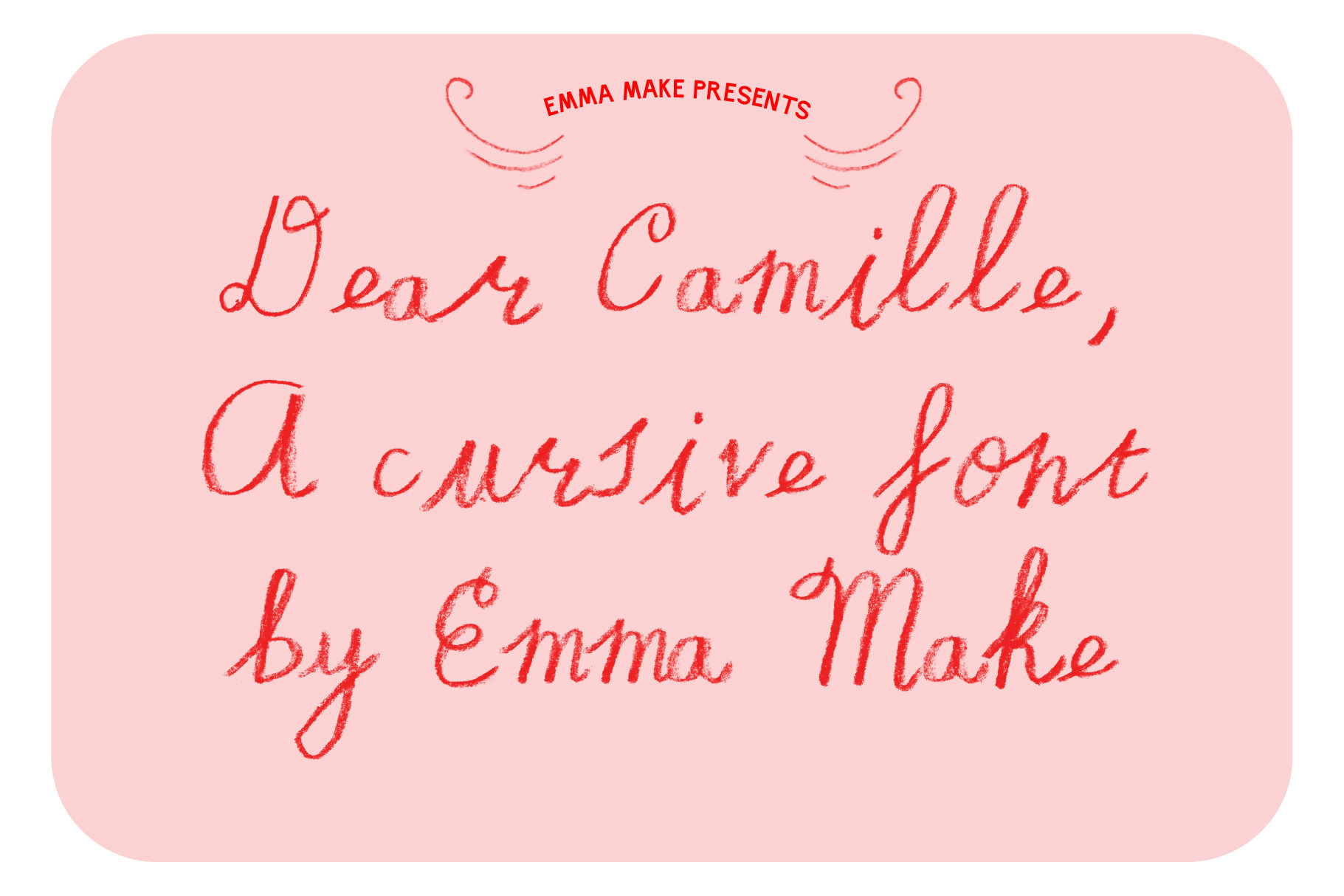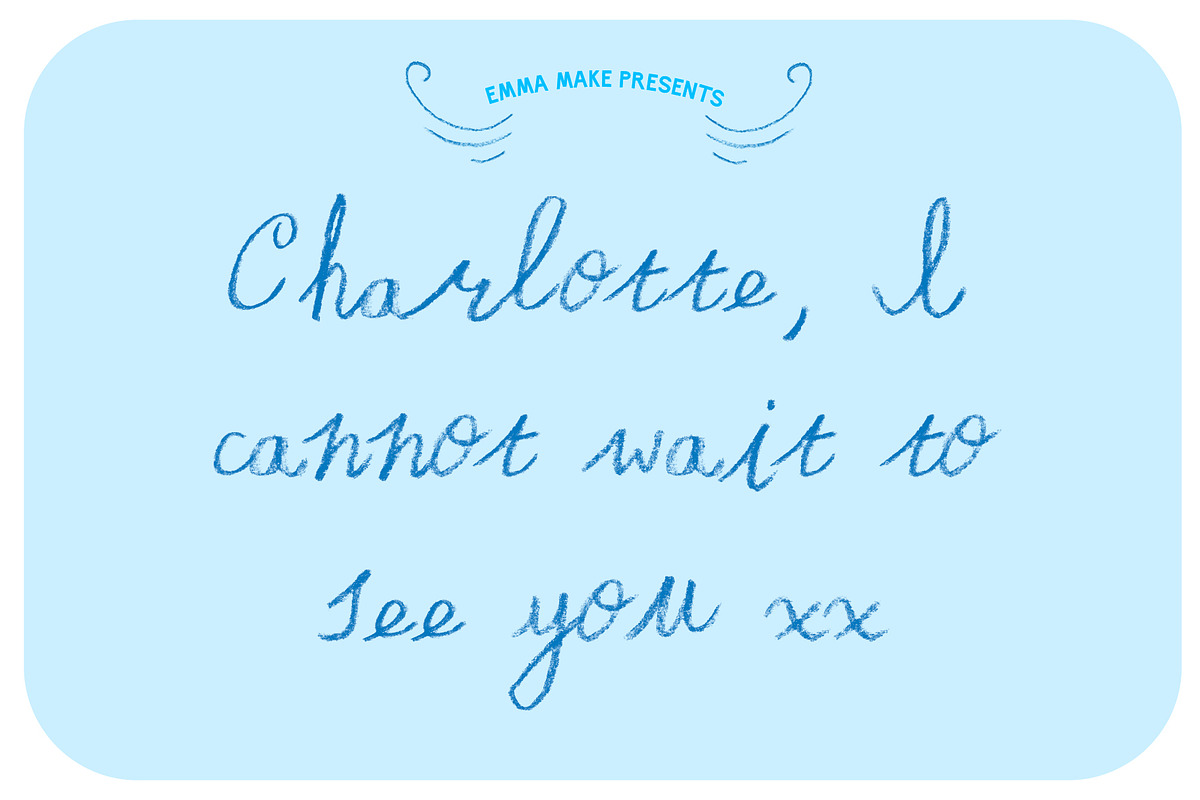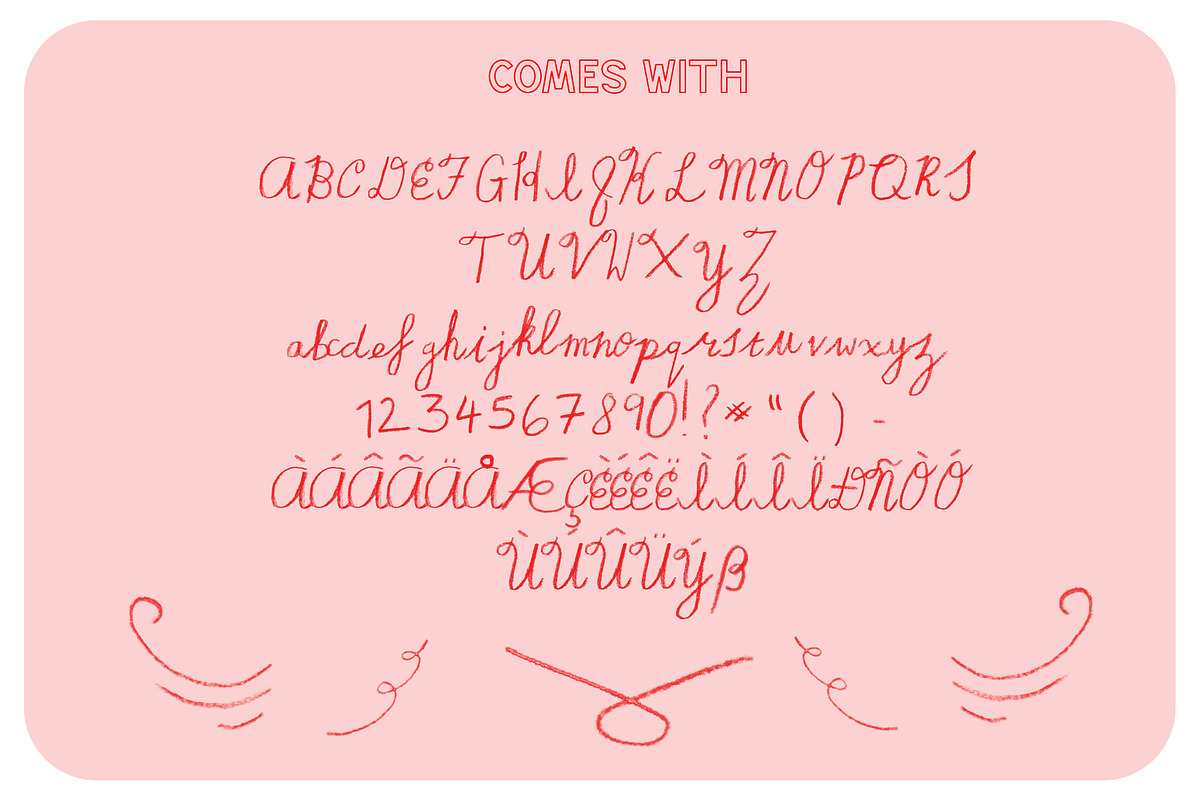
Dear Camille; A truly cursive font
A truly cursive font; Dear Camille, is a sweet handwritten pencil crayon type with as much tenderness and character as a love letter. Perfect for letters, stationery, invites and websites.
This font is jaw-droppingly beautiful, truly special, and really striking. I am glad we are able to change color now after reading some past reviews - yay! I am a collage and mixed media artist and plan to pair this font with my pieces and I think it fits SO perfectly for my themes of bittersweet nostalgia. Thanks, Emma!